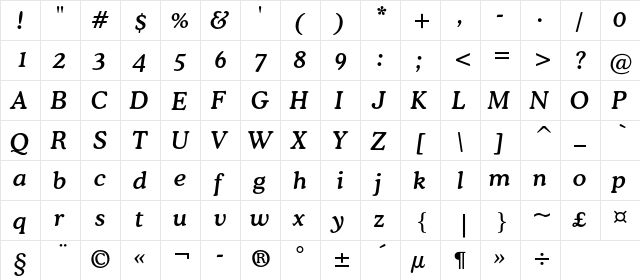
CooperMediumC BT Italic
Design Context for CooperMediumC BT Typeface
CooperMediumC BT offers clean, dependable letterforms without strong stylistic allegiance, making it a practical choice for designers who need flexibility. The dynamic lean of this cut emphasises speed and emphasis in any layout.
Pro Tip: Use CooperMediumC BT for emphasis, pull quotes, and subheadings where its slanted energy can add rhythm to the layout.